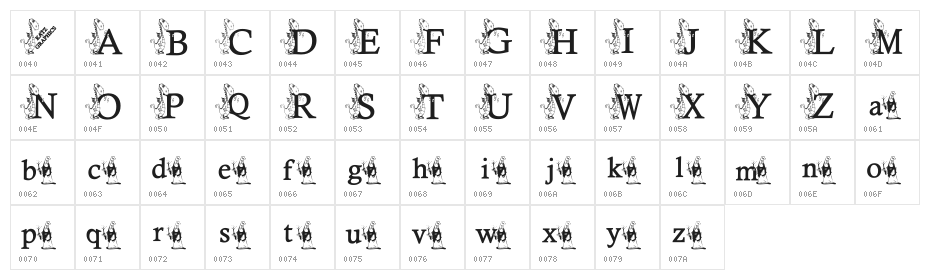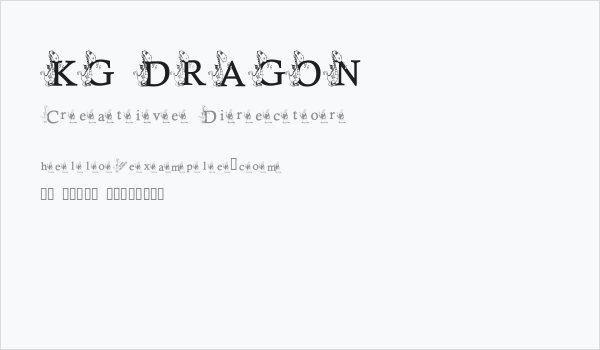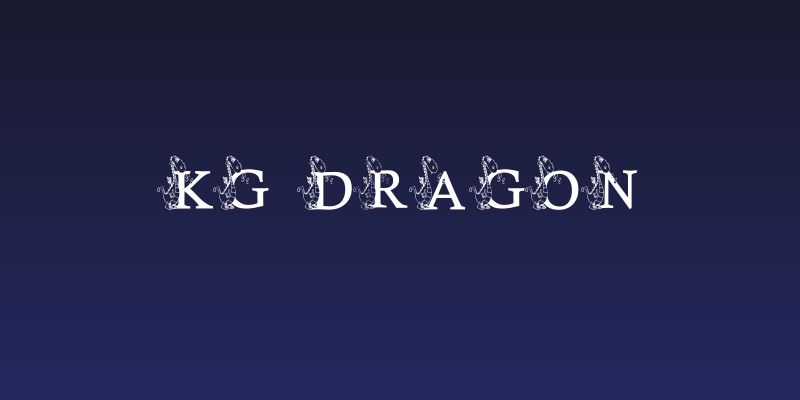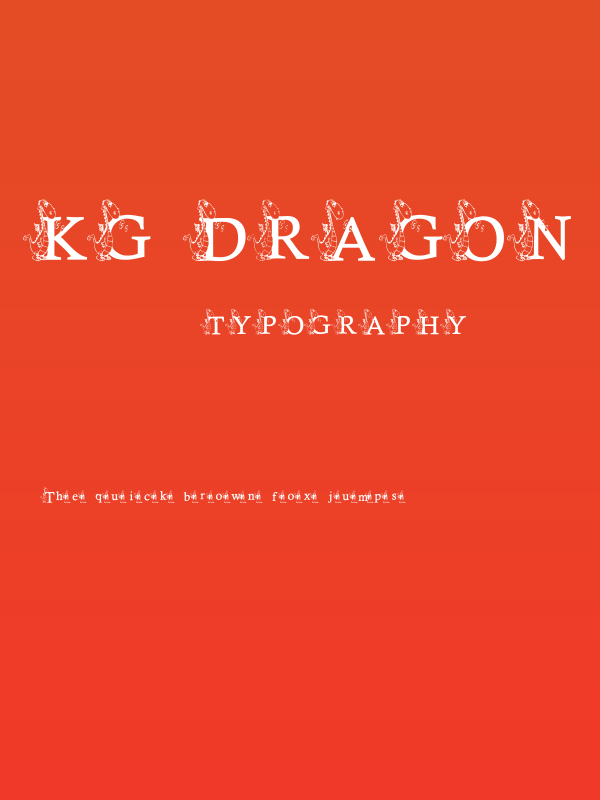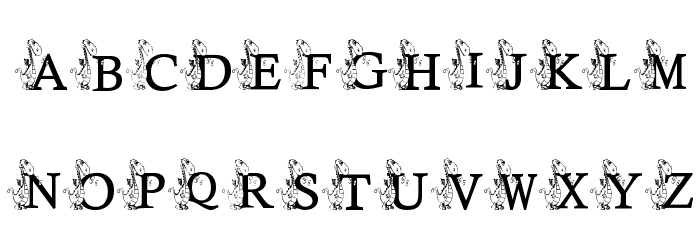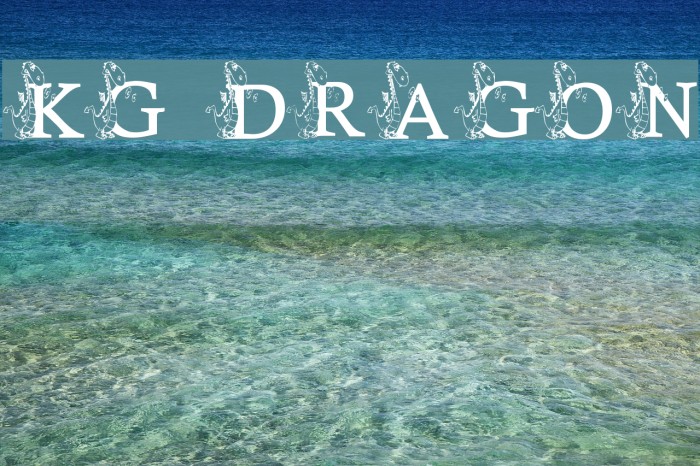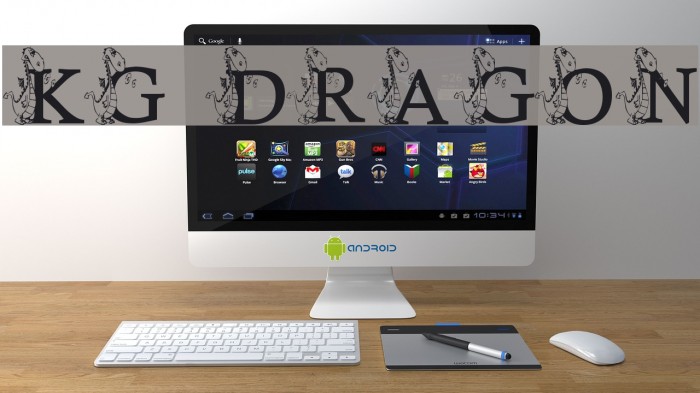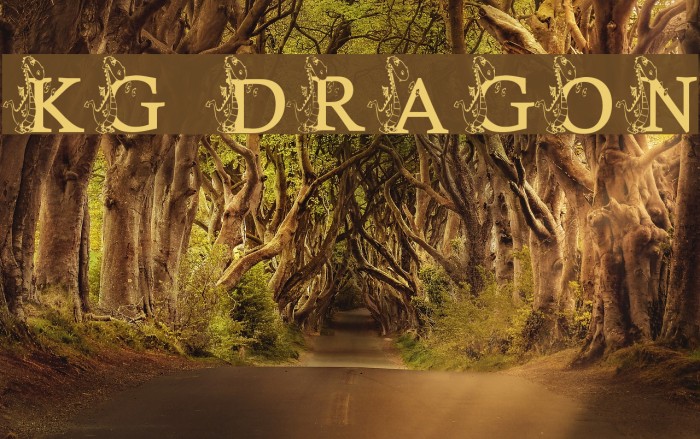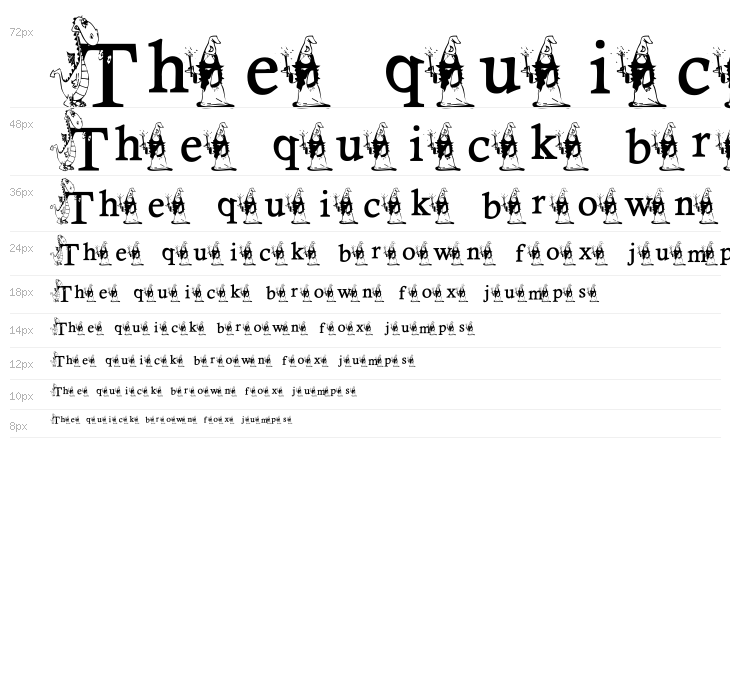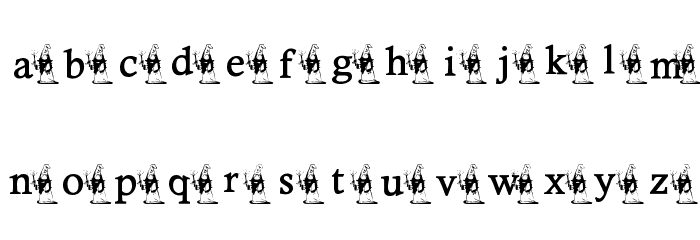
KG DRAGON Font
KG DRAGON Description
This font features a unique and decorative style, incorporating intricate dragon illustrations intertwined with each letter. The uppercase and lowercase letters are bold and serif, providing a classic and authoritative appearance. The dragons add a whimsical and mythical element, making the font stand out as a creative and artistic choice. The numbers and special characters maintain the same decorative theme, ensuring consistency across all characters. This font is ideal for projects that require a touch of fantasy or a medieval aesthetic.
KG-DRAGON UPPERCASE
KG-DRAGON LOWERCASE
KG-DRAGON OTHER CHARS
| Proposed Projects | Perfect for fantasy-themed book covers, game titles, posters, and creative branding projects. |